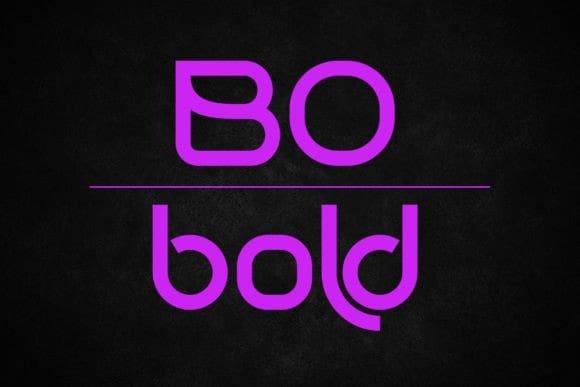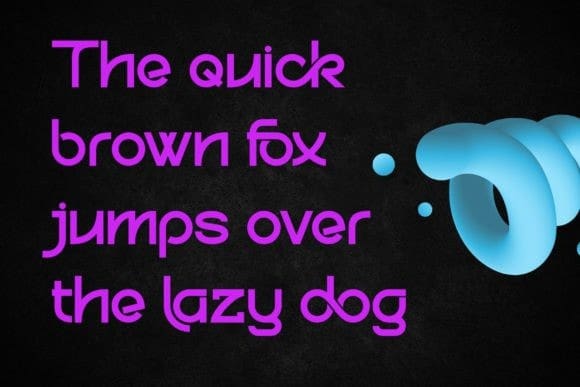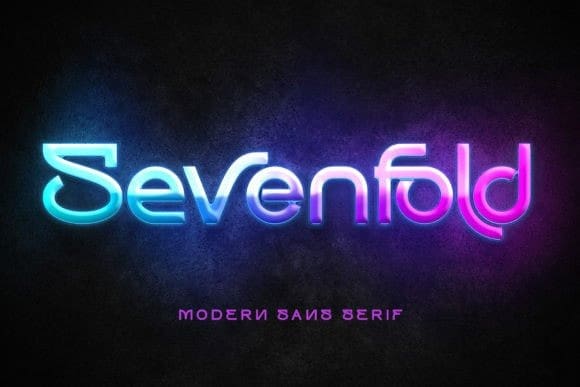
Sevenfold Font
Sevenfold Font a modern sans serif font that effortlessly blends bold with a touch of uniqueness. With its distinctive serifs and clean lines, this font achieves a perfect balance between contemporary style and classic aesthetics. It is a versatile choice for any design project that requires a hint of sophistication, be it editorial design, branding, or advertising.
Sevenfold Font shines equally in both digital and print media, adapting seamlessly to various platforms and applications. With its PUA encoding, accessing a wide range of glyphs and swashes is a breeze, allowing for easy customization and adding a personal touch to your designs. Experience the legibility and international appeal of Sevenfold, ensuring that your messages resonate with audiences across the globe. Elevate your designs with the modern charm of Sevenfold and unlock its potential to enhance your visual communication.